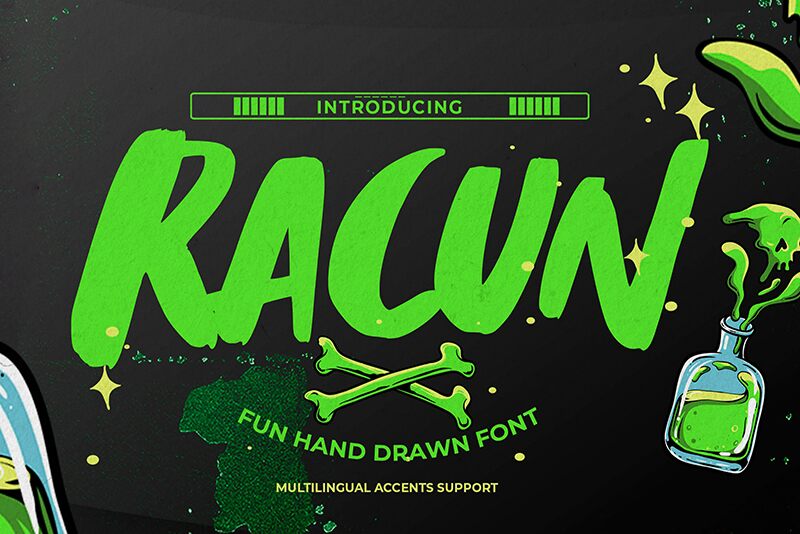
Racun
Racun, crafted by the innovative Gassstype, emerges as a font that embodies the spontaneity and exuberance of hand-drawn artistry. With its bold brush strokes and authentic style, this font dances across the page with dramatic movement that captures the essence of creativity written casually and quickly. Perfectly suited for a myriad of creative endeavors, Racun's character shines in modern contexts—its raw energy elevates posters, branding initiatives, and design projects with an air of originality.
Embrace Racun for its ability to infuse your work with an authentic touch; whether it's labels, quotes, packaging or even web design. The versatility of this font extends to photography overlays and scrapbooking—wherever a personal touch is needed. Elevate your creative projects with Racun's elegant yet natural look—a testament to its unique charm that can turn any ordinary project into something extraordinary.